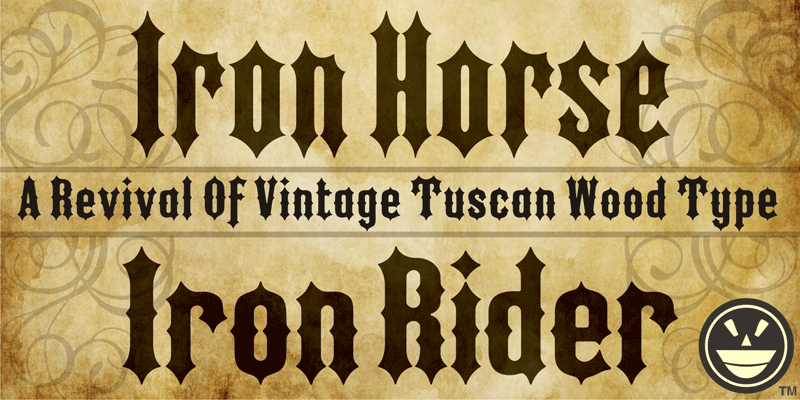
Preview and download Iron Horse Font. Created by Fontry in Gothic Modern styles with Free for personal use license.
Note from the author COMMERCIAL VERSION available for purchase at http://thefontry.com/ironfamily A $5.00 donation to PayPal using the donate button on this page is requested for limited commercial use of this Non-Commercial Version font. The complete lowercase range of characters is included in the commercial version of the IRON FAMILY. The Iron Family is a revival of two classic tuscan wood type fonts. With a recent history of identifying everything from Little League teams to chopper magazines, the influence of these spike-filled old-timers is undeniable. Whether the theme is Western, skateboards or a horror flick, these fonts have been there. So arm your computer with the latest spin on a pair of vintage favorites. 1800s, 1900s, american chopper, americana, antique, bike, biker, carnival, chopper, circus, condensed, cycle, easy rider, easyrider, eszett, fair, fair ground, fairground, ghost, goth, gothic, Gothic Tuscan horror flick, Pointed, harley, harley davidson, hawg, headline, iron, iron wood, ironpost, ironwood, letterpress, motorcycle, narrow, ornamental, pirate, pointed, poster, railroad, rat rod, ratrod,retro, spike, spiked, sturgis, tattoo, thunderbird, train, tuscan, vintage, west coast chopper, western, wild west, wood type, woodtype |